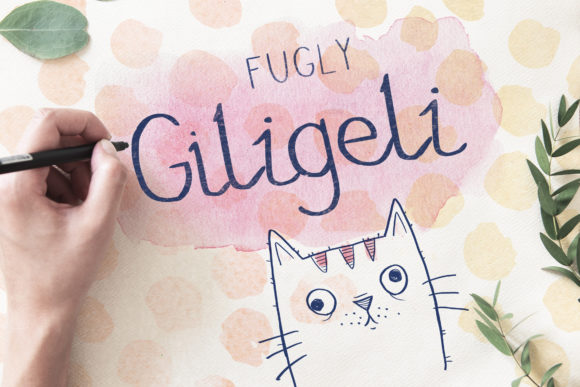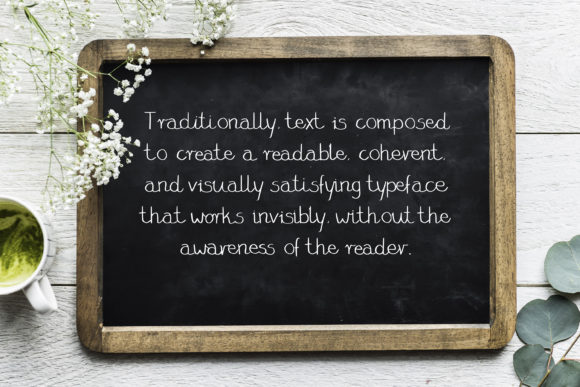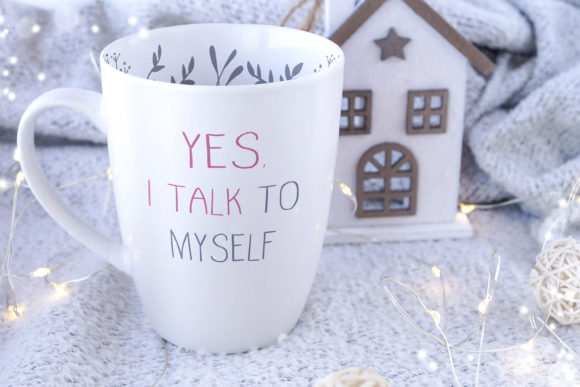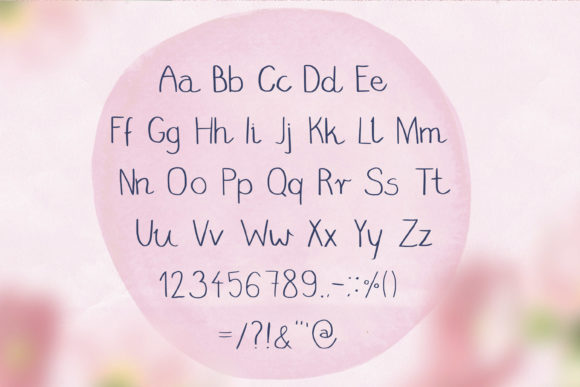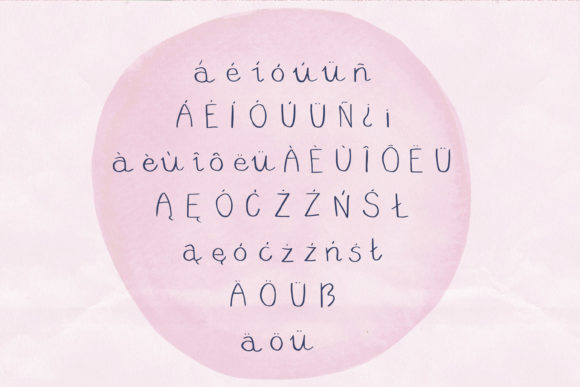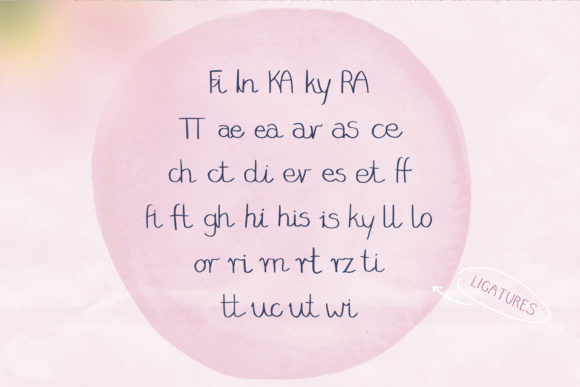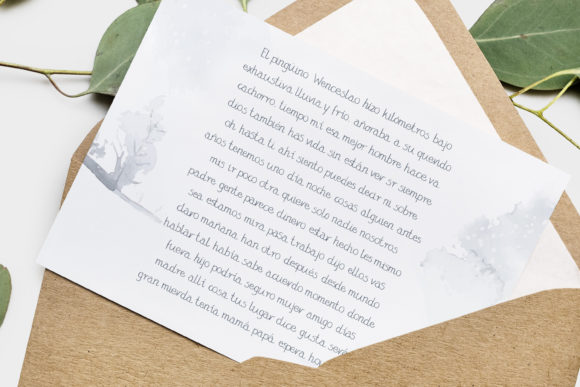
Fugly Giligeli Font
About Fugly Giligeli Font
Fugly Giligeli embodies fun, quirkiness and authenticity. This enchanting handwritten font will turn any creative idea into a true standout.